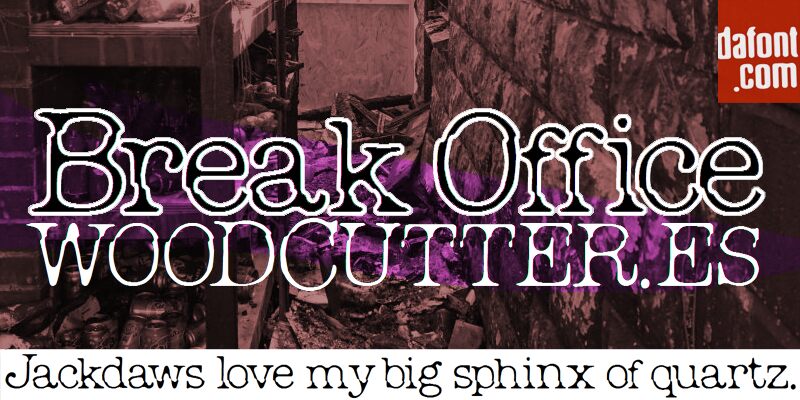
Break Office
Break Office, designed by Woodcutter, stands out as a distinctively distorted display font with a semi-light weight that commands attention. Its aesthetic appeal lies in the unconventional twists and turns that give each character a uniquely unpredictable shape. This font's style dances on the edge of order and chaos, making it an exceptional choice for creative projects that aim to break free from the mundane and evoke a sense of artistic rebellion.
The carefully crafted dissonance of Break Office lends itself effortlessly to graphic design endeavors that require a touch of edginess or an avant-garde flair. Whether applied to concert posters, edgy fashion branding, or dynamic web design, this typeface exudes an air of contemporary coolness while maintaining legibility. Its versatility is matched by its visual impact – Break Office is poised to set your designs apart in a crowded marketplace where standing out is not just desired but essential.